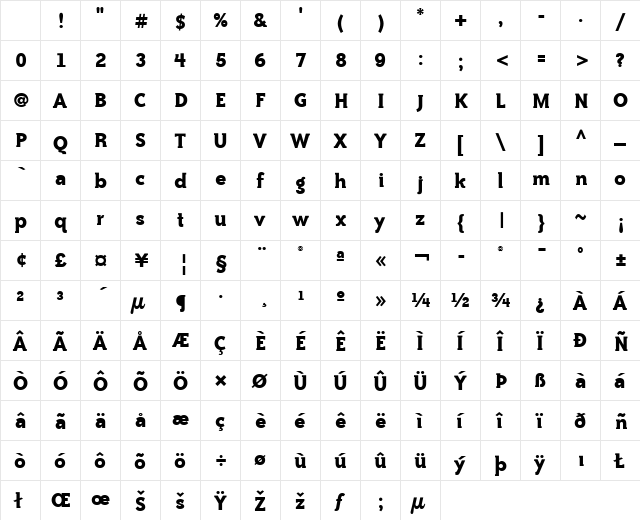
Bailey Quad ITC is a composed and adaptable typeface that performs quietly and consistently across a wide range of design contexts. Its bold stroke weight gives it real presence on the page.